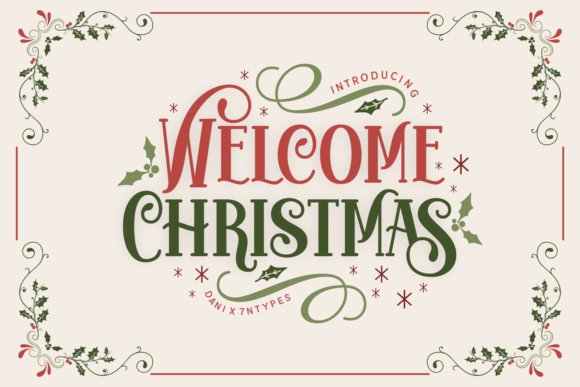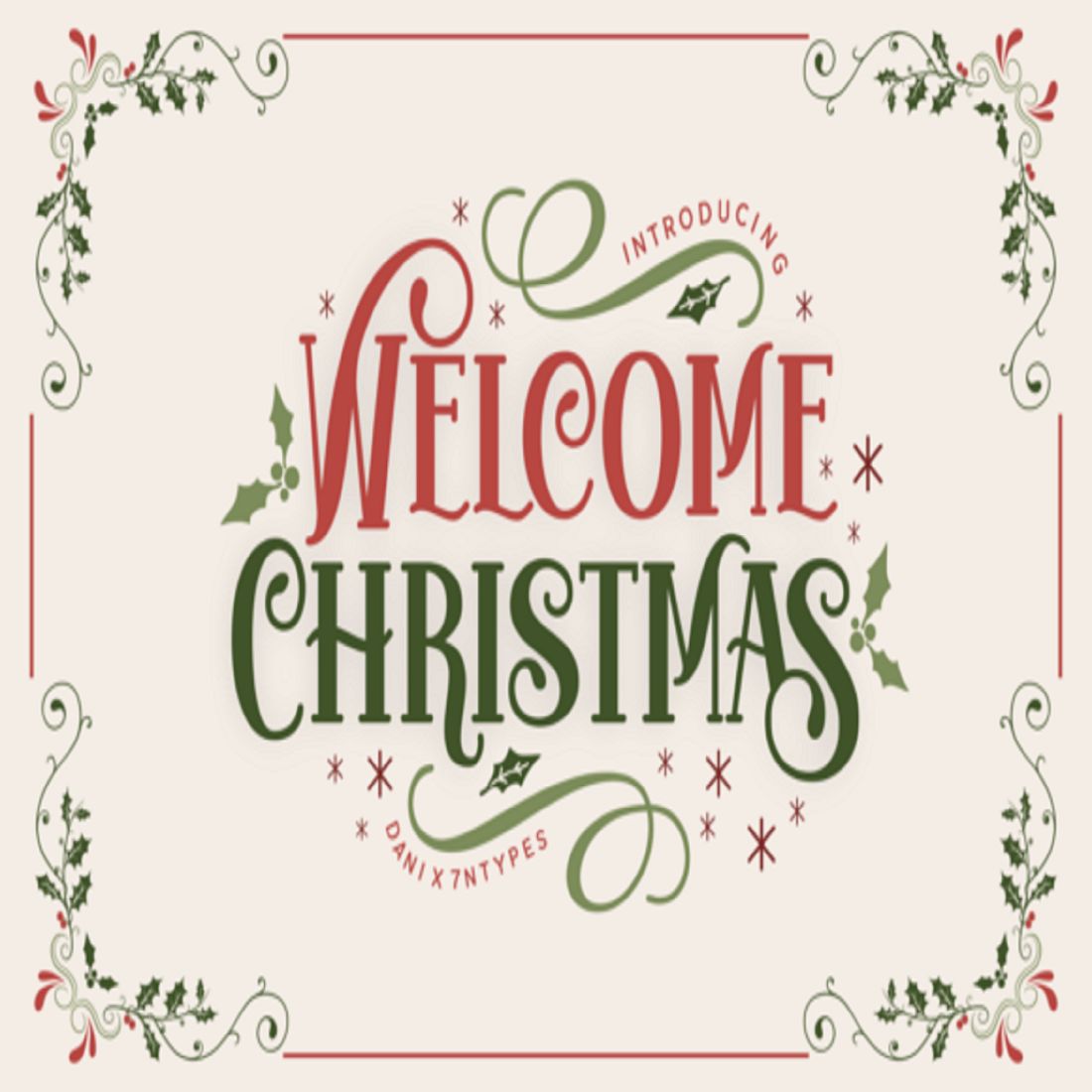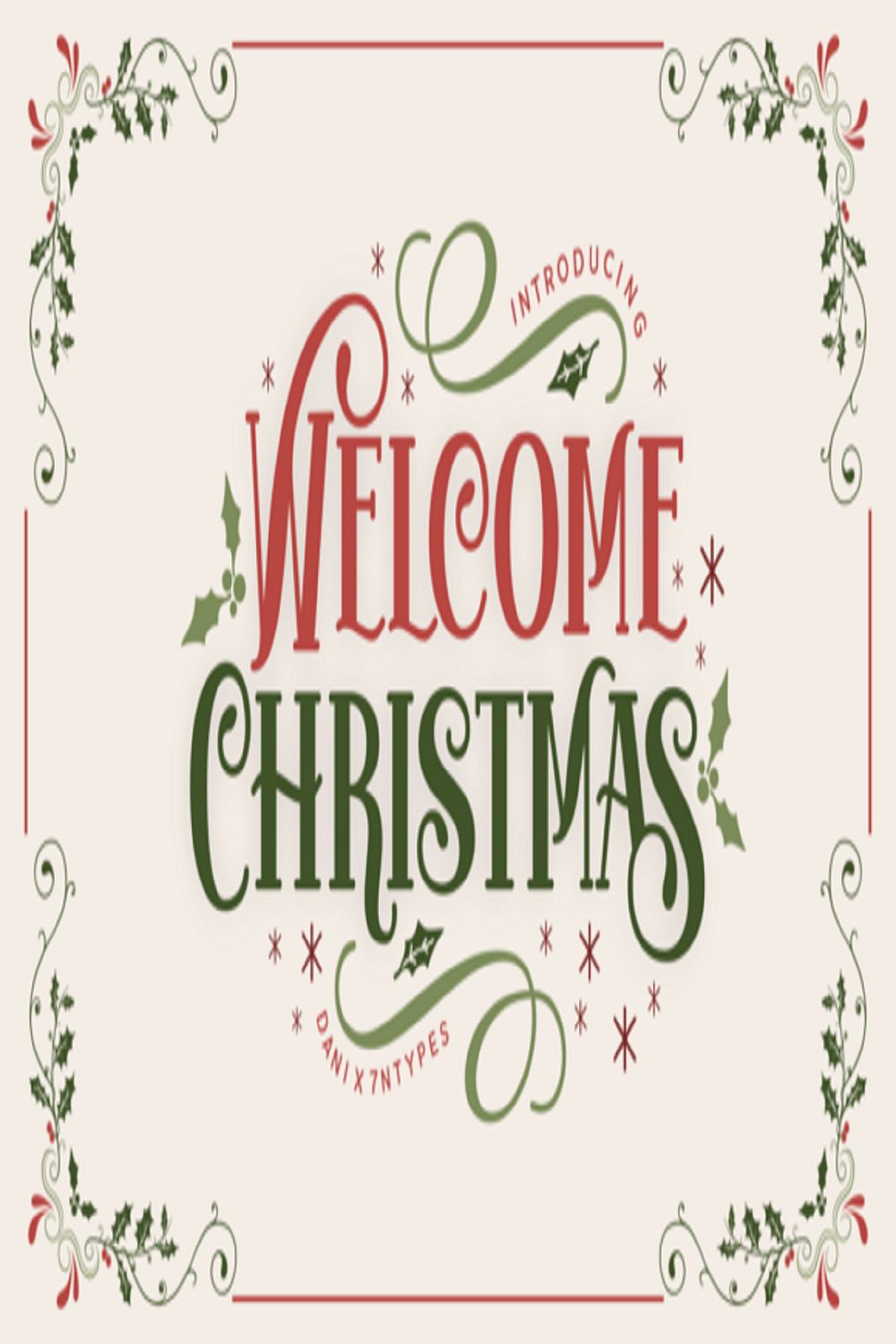
Welcome Christmas is a joyful and festive display font. It matches each of your holiday creations so add this font to your designs and make them come alive!